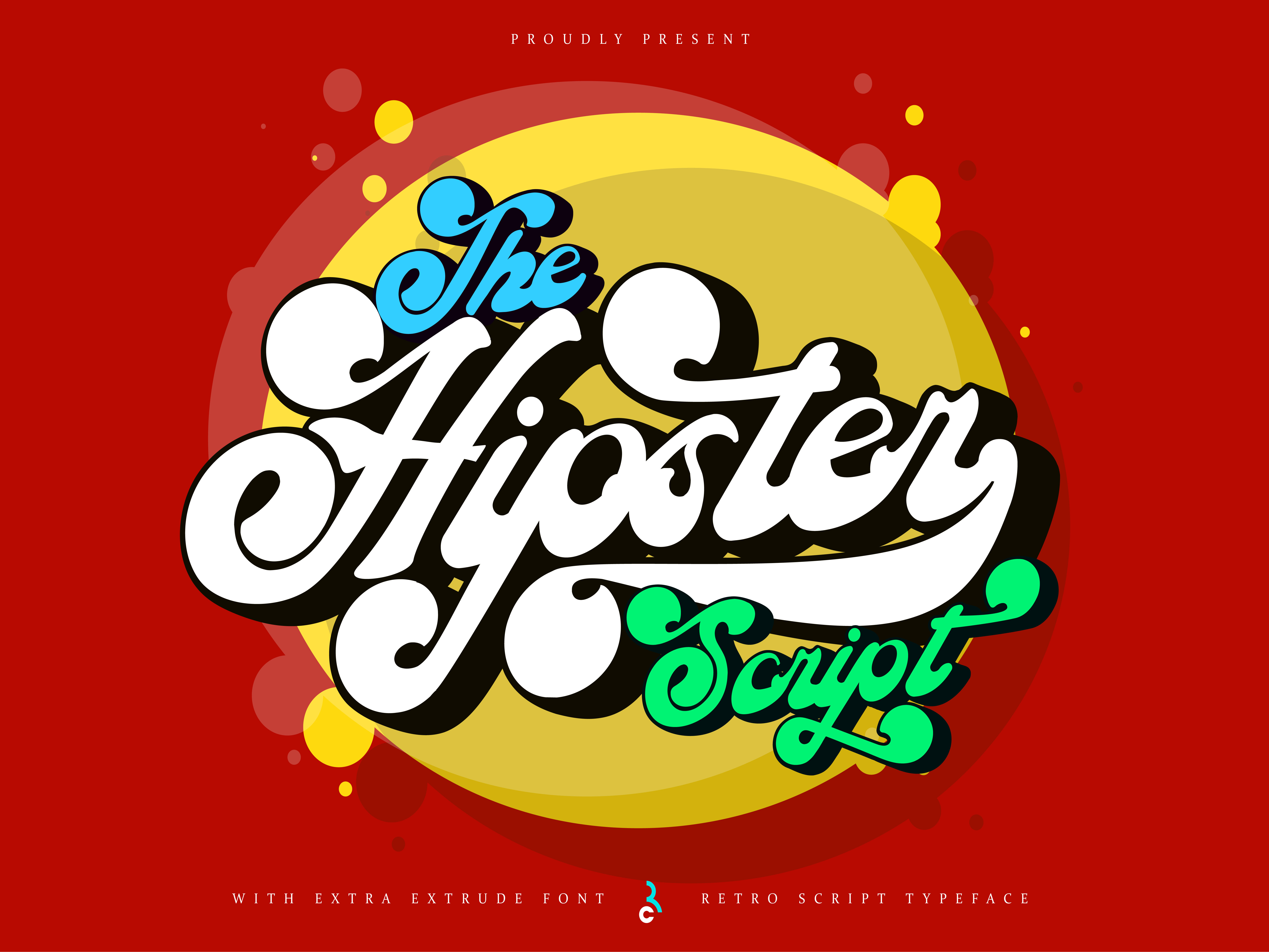
The Hipster script | Font retro style
The Hipster script is a retro script typeface with gentle curves and lines that make this font look beautiful and realistic. Get a touch of a bold vintage script font, classic and fun, with glyphs and features open type with stylization and ligatures, and the addition of alternate shading. It can be used for various purposes. such as posters, magazines, signs, logos, news, badges, etc.
The Hipster script Retro Style Font, with smooth curves and lines makes this font lookbeautiful and realistic.With 300+ Characters,The Hipster script is also supported with additional characters that have Alternate one form for all characters, which will help you achieve beautiful styles with your own creations.
Features;
-Uppercase, Lowercase,Foreign support, Number and Punctuation
-Reguler and Extrude